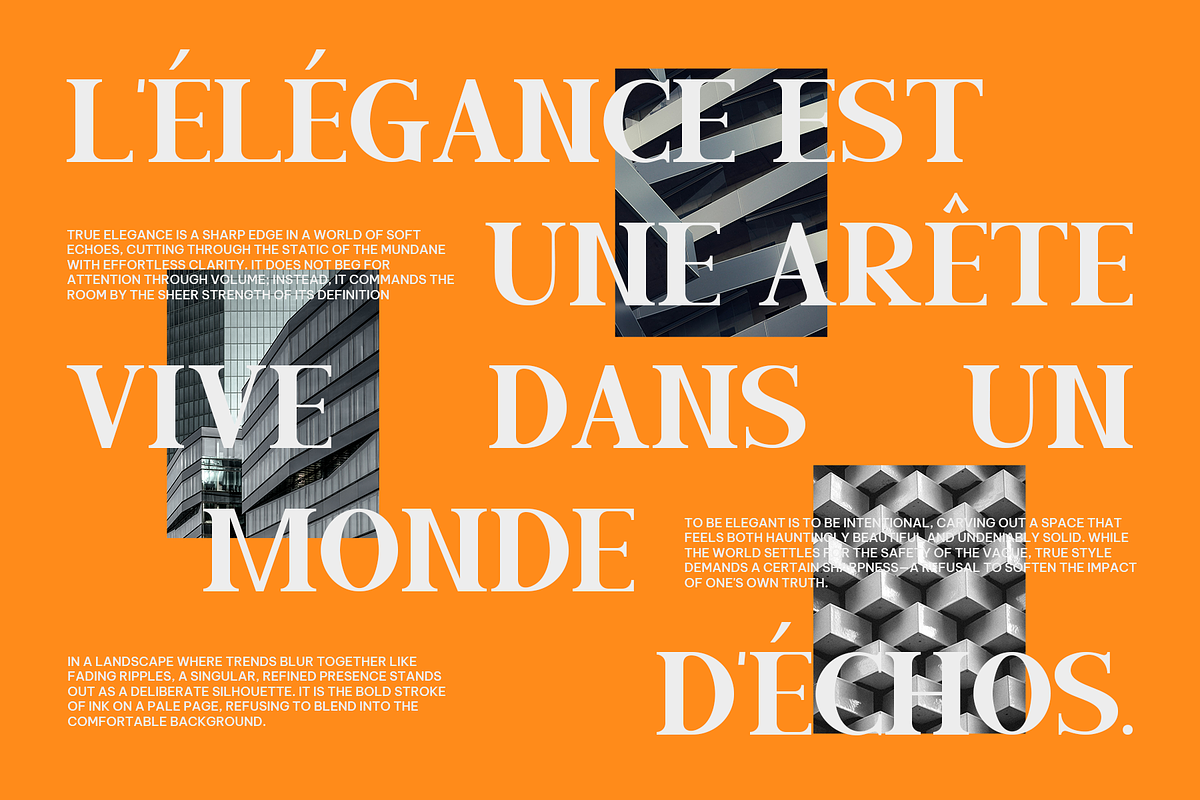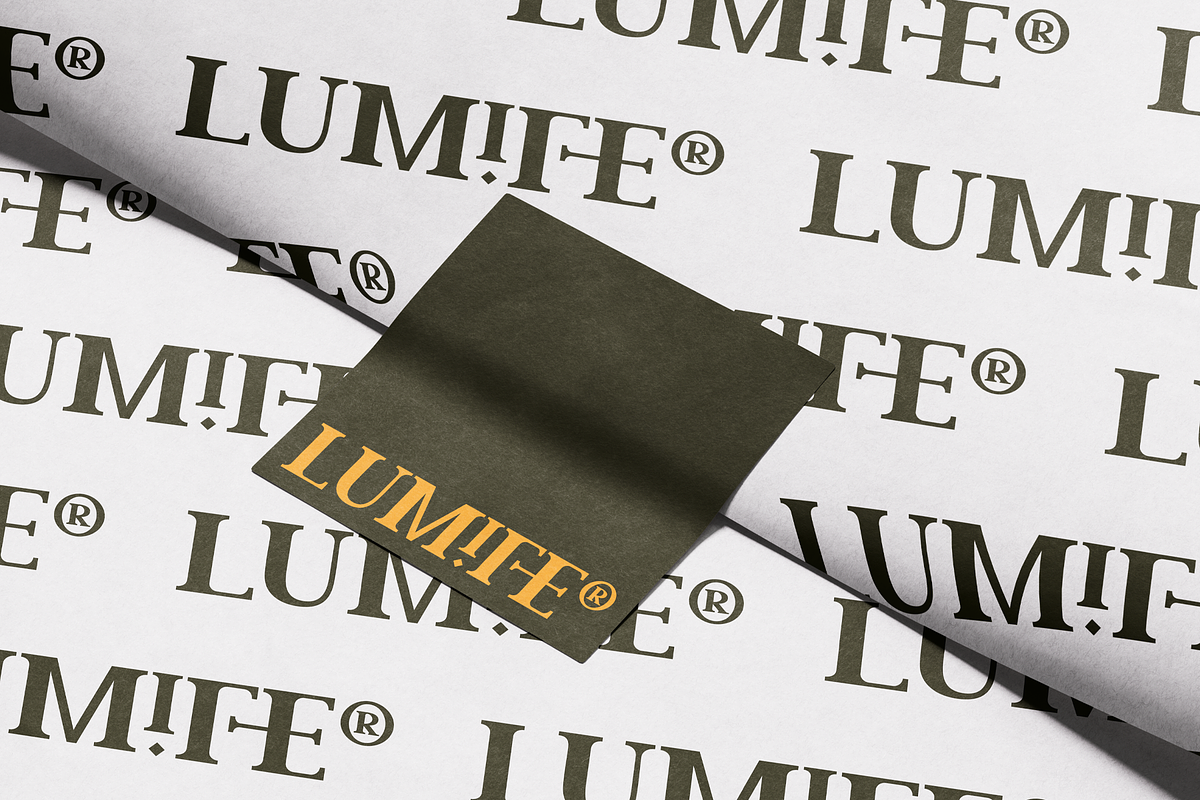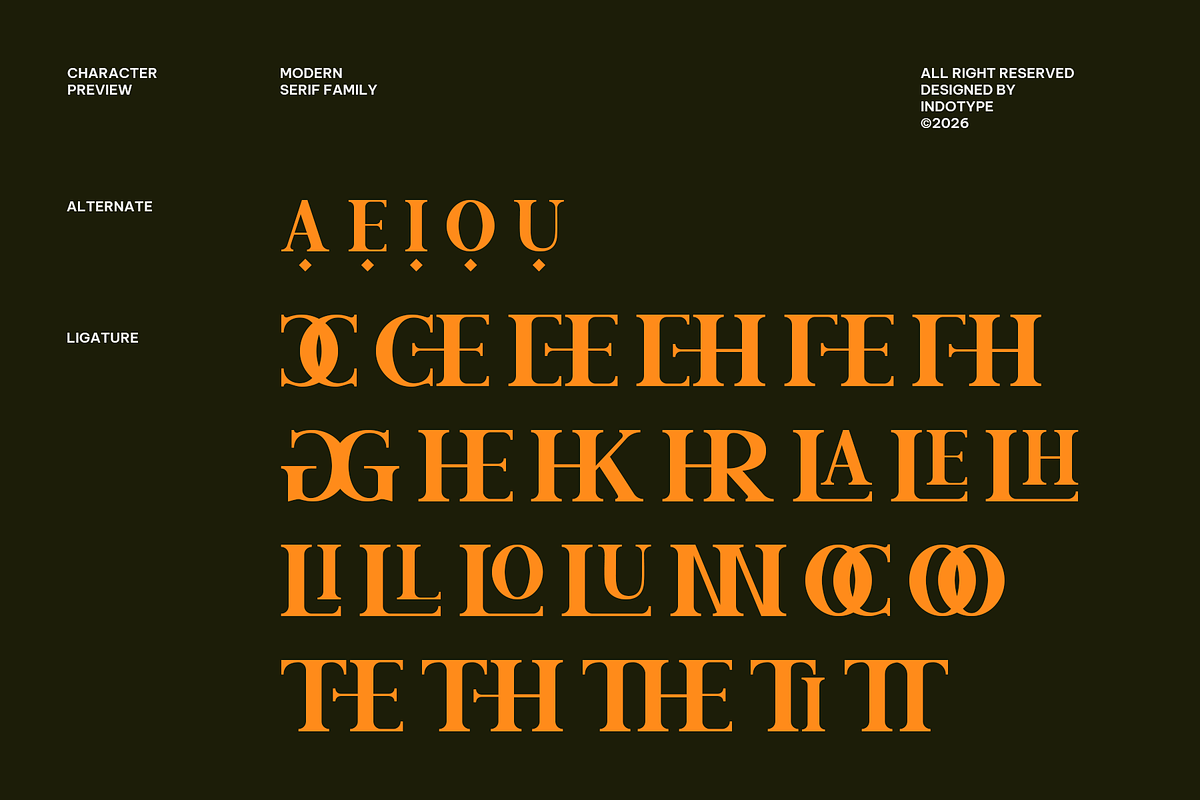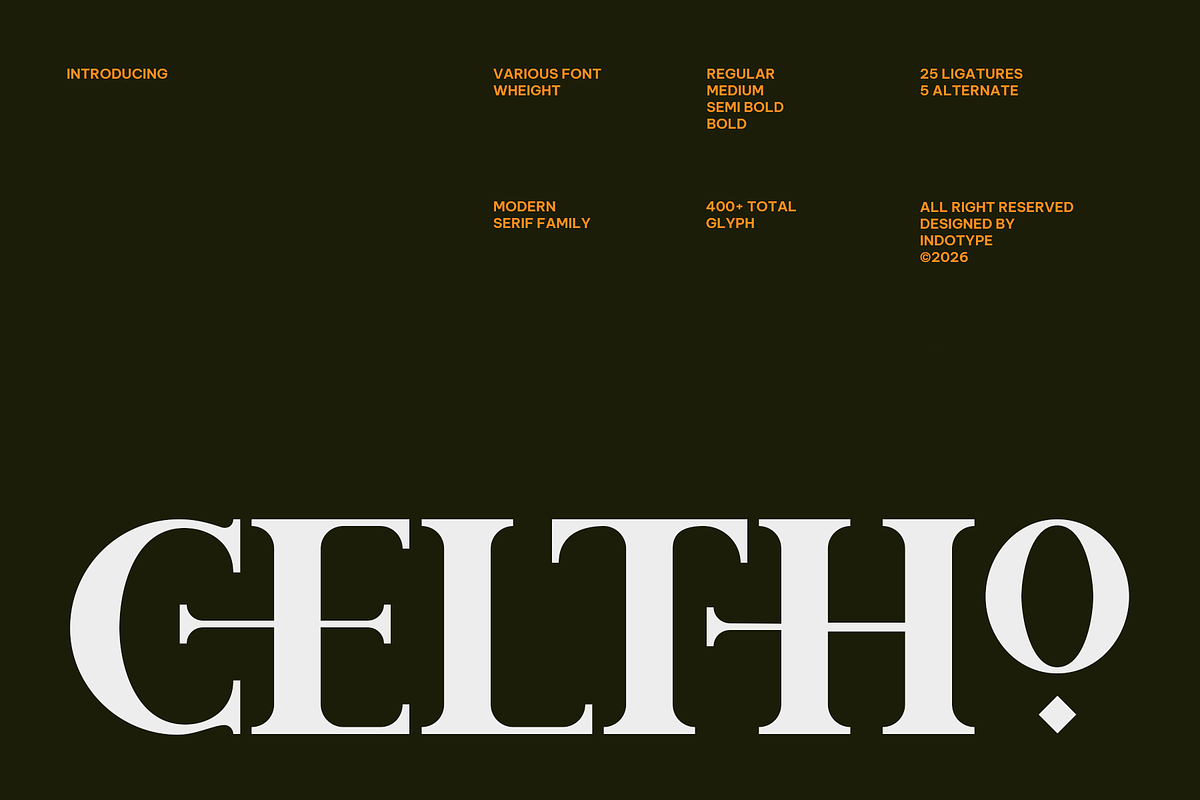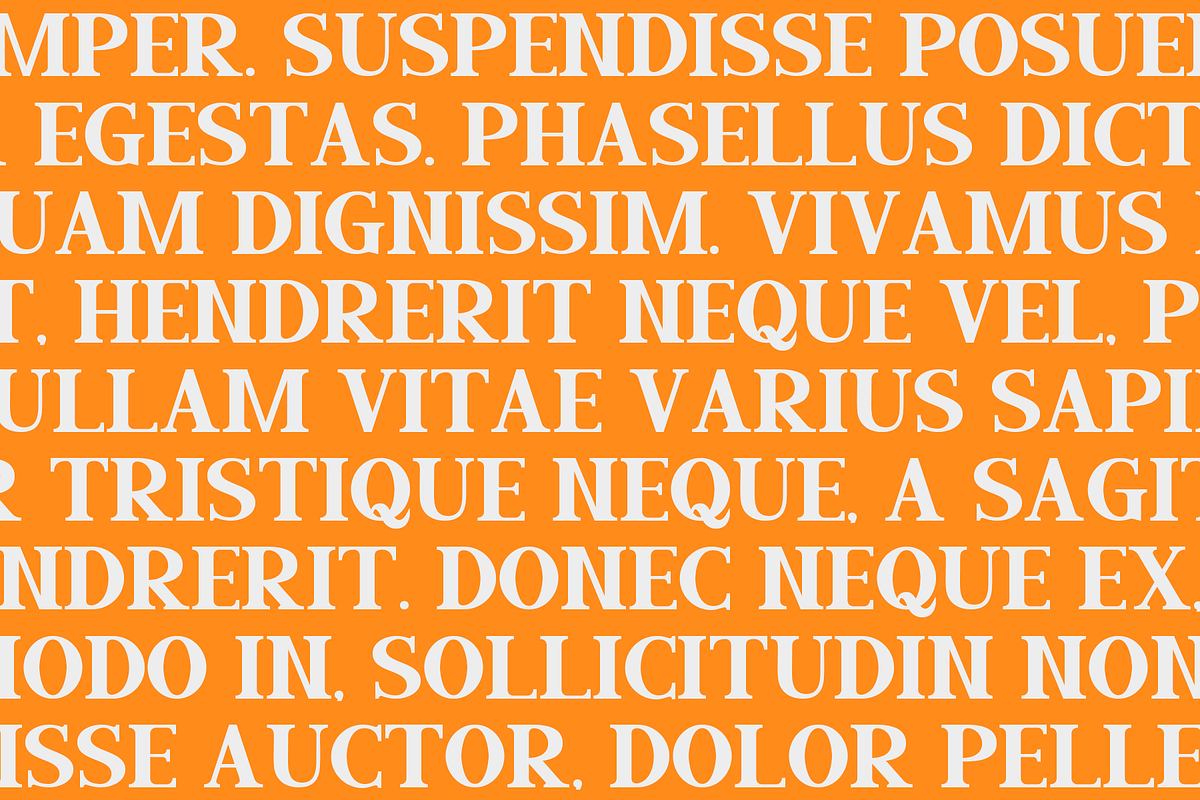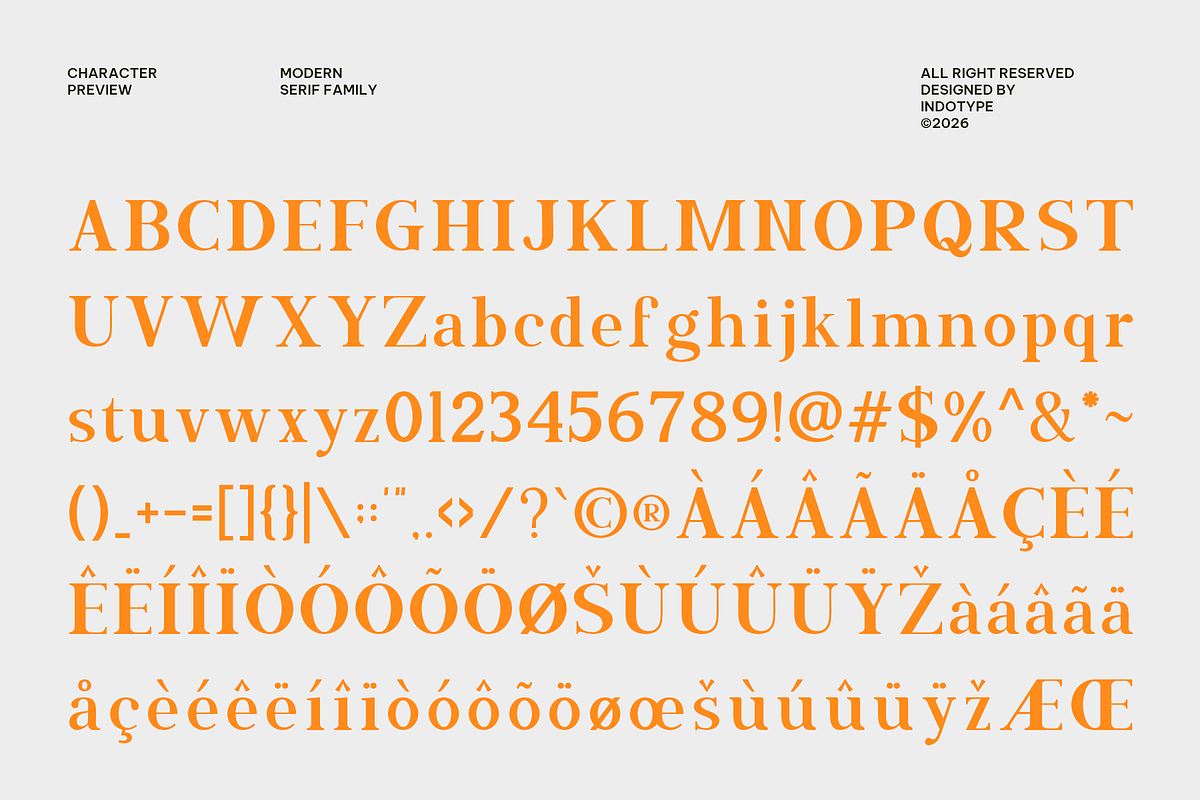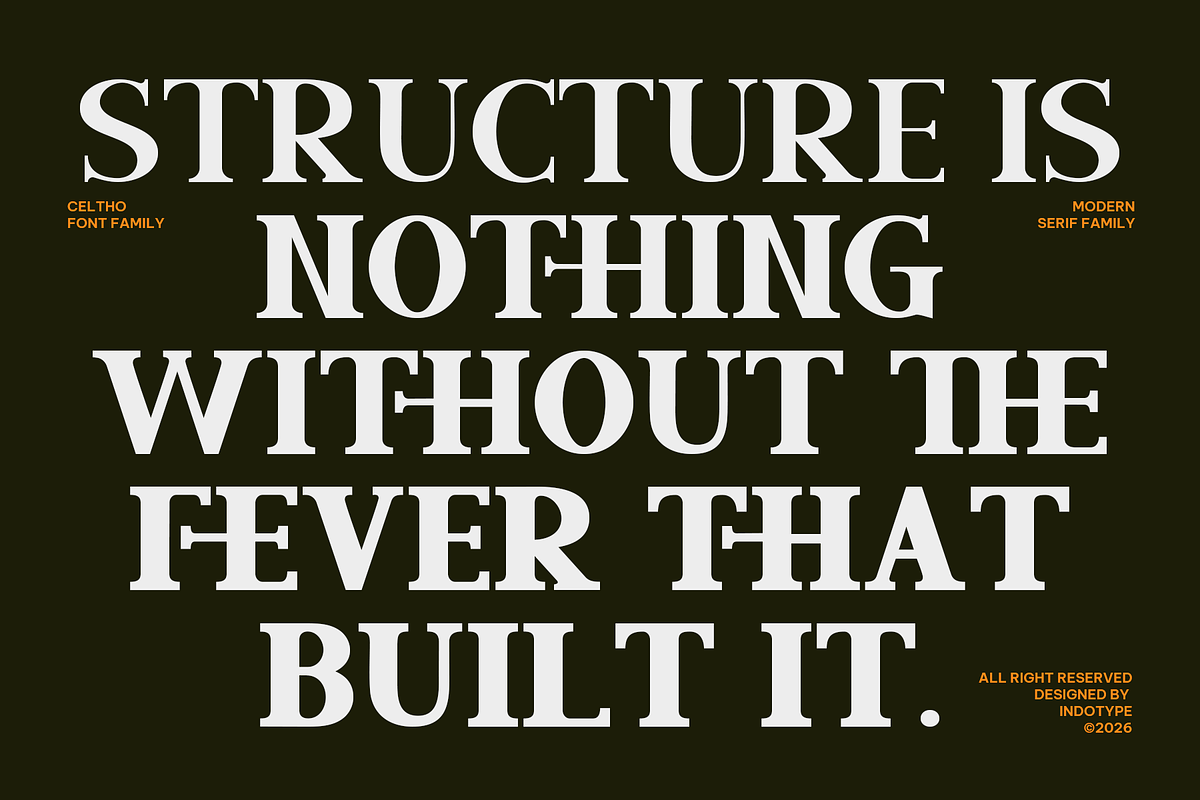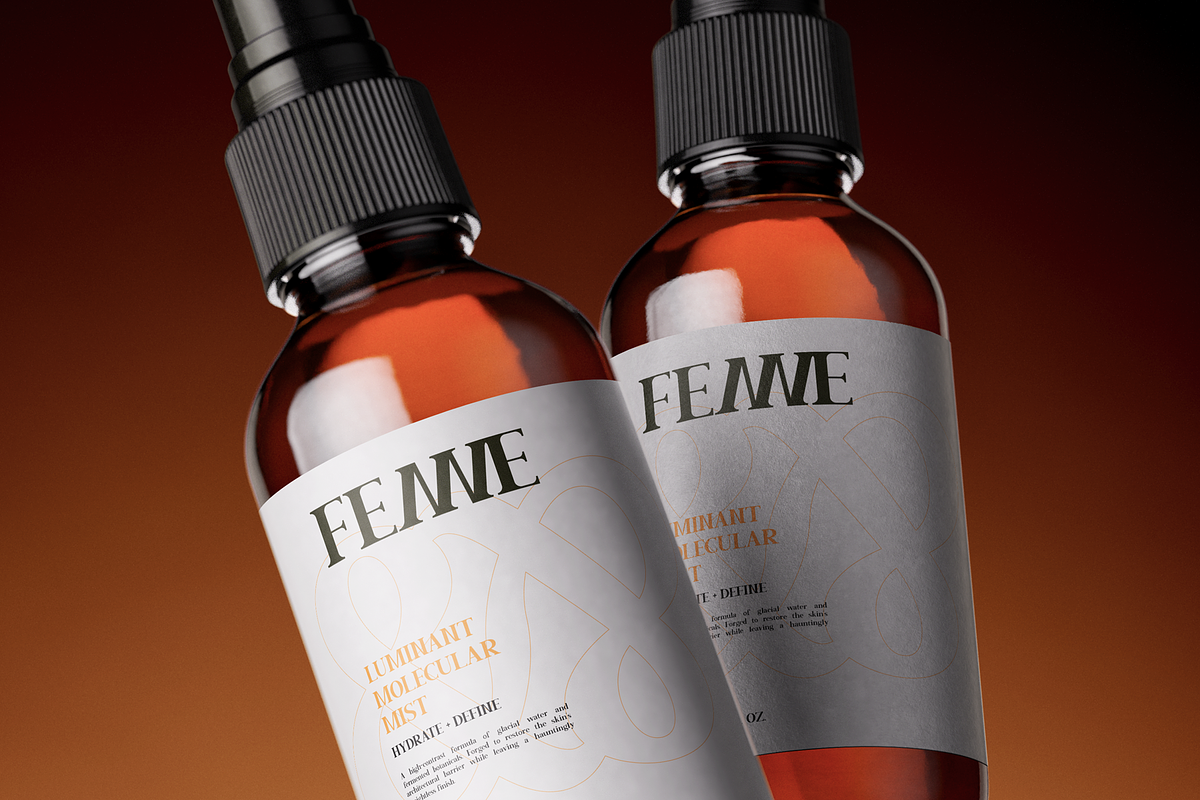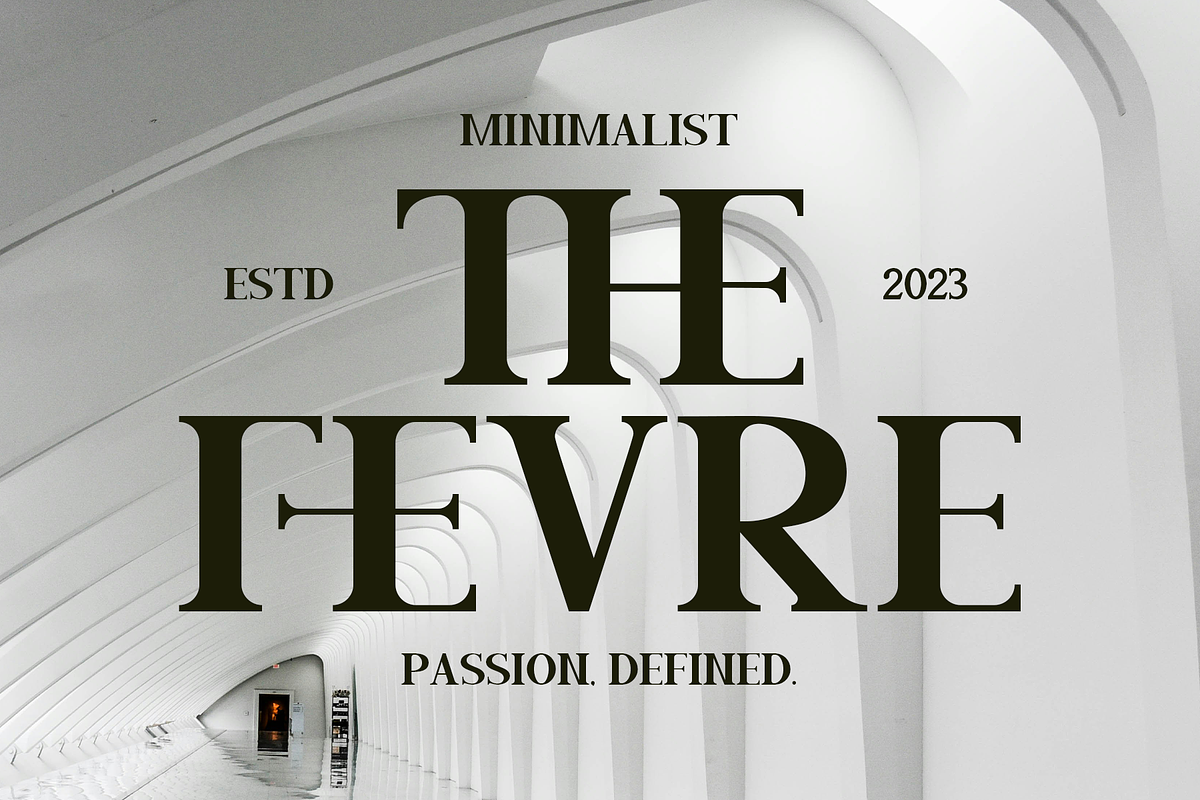
Celtho - Modern Serif Font Family
Celtho is a modern serif font family of commanding presence, typographic depth, and exceptional creative range. Celtho delivers four weights — Regular, Medium, Semi Bold, and Bold — across a glyph set of 400+ characters, enriched by 25 OpenType ligatures and 5 alternate glyphs that give designers an extraordinary degree of expressive control within a single cohesive type system. This is a serif family built not merely to perform typographic functions, but to define visual identities — to give brands, publications, and design systems a distinctive typographic voice that is simultaneously grounded in the authority of classical serif tradition and entirely alive to the aesthetic demands of contemporary design. Celtho operates in the high-contrast serif tradition — the lineage of rational, Didone-influenced type design where dramatic differences between thick vertical stems and hairline-thin horizontal strokes create a visual electricity that no low-contrast typeface can replicate. But Celtho is not a pure Didone revival. It synthesizes the Didone tradition's essential visual energy with a more robust, structurally confident construction that gives the family exceptional versatility across weights and applications.